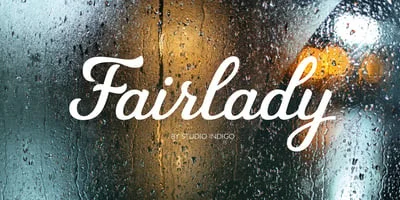
Fairlady Font
The Fairlady Font excels in various design applications including elegant feminine branding, sophisticated women's fashion marketing, graceful beauty product packaging, refined wedding invitations, upscale boutique signage, luxury lifestyle communications, charming romantic event materials, distinguished ladies' club identities, premium feminine wellness brands, and delicate cultural projects that demand ladylike sophistication and timeless feminine elegance.
What makes the Fairlady Font exciting is its perfect embodiment of refined femininity and graceful sophistication through letterforms that capture the essence of classic ladylike charm and contemporary feminine empowerment. This typeface demonstrates exceptional balance between delicate beauty and confident strength, featuring carefully crafted characters that suggest the poise, grace, and intelligence of distinguished women throughout history. The font's ladylike personality makes it perfect for brands targeting sophisticated women and organizations seeking to communicate feminine excellence, refined taste, and the enduring appeal of graceful elegance through typography that honors the finest traditions of feminine sophistication.
The Fairlady Font family typically includes elegant weight variations that preserve feminine grace, featuring flowing italic styles with delicate flourishes and refined decorative elements. These family options often include stylistic alternates with enhanced feminine characteristics, graceful ligatures, and sophisticated ornaments that provide designers with comprehensive tools for creating authentically elegant typography that celebrates feminine beauty and strength while maintaining contemporary relevance.
Fashion industry professionals and feminine luxury brands consistently choose Fairlady Font for projects requiring typography that communicates refined femininity and sophisticated elegance. This typeface delivers exceptional performance in women's fashion marketing, beauty branding, and feminine lifestyle communications where establishing grace and demonstrating appreciation for feminine sophistication is essential for target audience connection. The font's elegant character makes it particularly effective for wedding and celebration applications. Download Fairlady Font today to access this graceful typeface that transforms feminine communications with its ladylike sophistication and elegant charm, creating compelling experiences that celebrate the beauty and strength of refined femininity while maintaining the highest standards of contemporary design excellence.